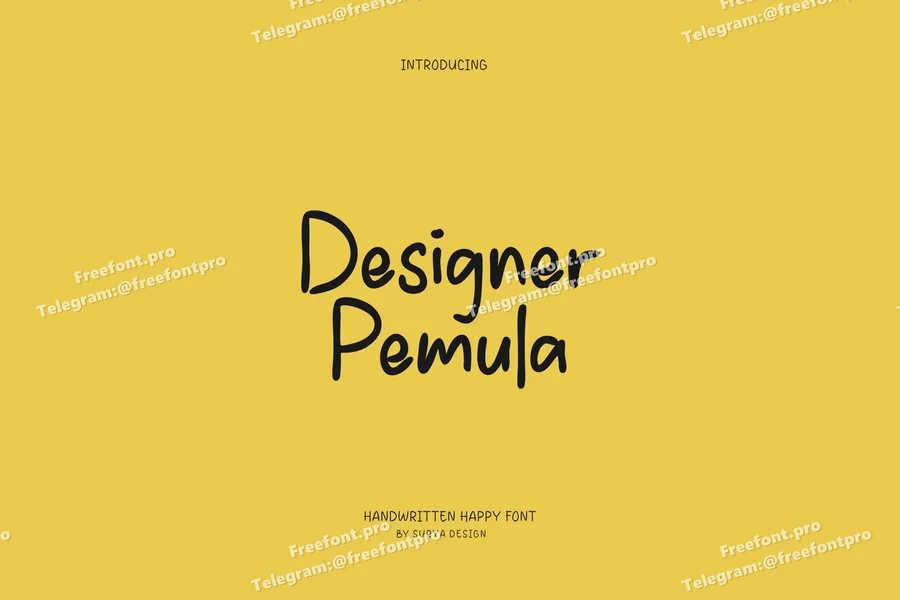
Designer Pemula Handwritten Happy Font
Introducing our new product Designer Pemula Font – Modern Font
Designer Pemula Font- Modern Font is a bold and authentic display font. The font is suitable for any branding project like logo, esport, and many more. outstanding in a wide range of contexts.